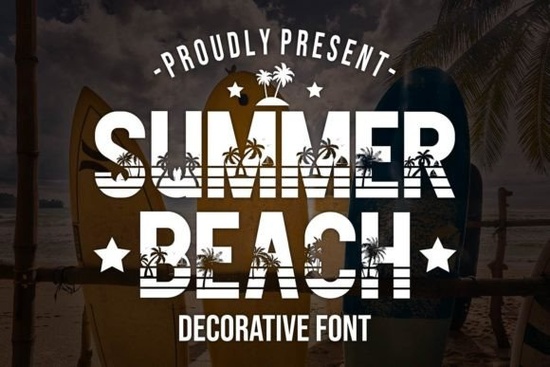
If you're looking for a light, cheerful font that instantly says “summer vacation,” the Summer Beach Font is a thoughtful choice especially if your projects lean toward handcrafted charm or small-batch design. It’s not just another script or display font; each letter features a subtle, friendly palm tree motif not overwhelming, but unmistakably tropical. You’ll notice it most in letters like “B,” “P,” and “R,” where the trunk and fronds peek through the curves. It works best at larger sizes (24pt and up), where those details shine without crowding.
When does Summer Beach Font work best?
This font shines in contexts where warmth, playfulness, and seasonal energy matter more than strict formality. Think: handmade greeting cards for beach weddings, printable party invites for kids’ summer birthdays, or vinyl-cut signs for a local café’s “Tropical Tuesdays” menu board. It’s also popular with print-on-demand sellers using platforms like Redbubble or Etsy especially on items like tote bags, mugs, and wall art aimed at travelers, parents, or coastal lifestyle audiences.
Because the palm motifs are integrated into the letterforms (not added as separate graphics), it scales cleanly and stays legible. That makes it more versatile than clipart-heavy fonts you can use it in Cricut Design Space or Silhouette Studio without extra layering or alignment headaches.
How does it compare to other decorative fonts?
Unlike ultra-thin scripts or tightly spaced monograms, Summer Beach Font has generous spacing and open counters meaning it reads well even when printed small on tags or product labels. It sits comfortably between playful and polished: less cartoonish than Cotton Candy Font, and more thematic than Mama Flowers Font. If you love the idea of a themed font but want something that still feels intentional and design-aware, this one fits neatly in that middle ground.
For example, pairing Summer Beach Font with a clean sans-serif like Montserrat or Open Sans creates nice contrast great for posters where the headline sets the mood and the body text stays readable. And because it’s a single-style font (not a full family with bold/italic variants), it encourages simplicity which often leads to stronger visual hierarchy in DIY projects.
One practical note: since the palm details are part of the glyphs, avoid stretching or distorting the font in editing software. If you need variation, try layering it with a solid color background or adding a soft shadow both techniques help the motifs pop without compromising clarity.
Where else might this fit in your font collection?
If you already own Monogram Love Curly Font, you’ll appreciate how Summer Beach Font offers a different kind of personality less romantic, more relaxed. And if you reach for Mama Flowers Font for spring or garden themes, this is its sunny, sandy cousin for June through August. It’s also a natural companion to Cotton Candy Font when you’re building seasonal bundles say, a “Summer Sweet Shop” set for planners or party kits.
Designers who create social media content for local boutiques or vacation rentals tell us they use it most for Instagram Stories headers and Reels thumbnails not full paragraphs, but short phrases like “Sand & Sun,” “Open Daily,” or “Vacation Mode: ON.” That’s where its rhythm and lightness really land.
- ✅ You’re making something with a beach, vacation, or carefree summer theme
- ✅ You’ll use it at medium-to-large sizes (not tiny captions or footnotes)
- ✅ You prefer fonts with built-in character not ones that rely on separate graphics or overlays
- ✅ You already have or plan to pair it with a neutral supporting typeface
If those match your needs, Summer Beach Font is ready to bring gentle, sun-warmed energy to your next project no overthinking required.